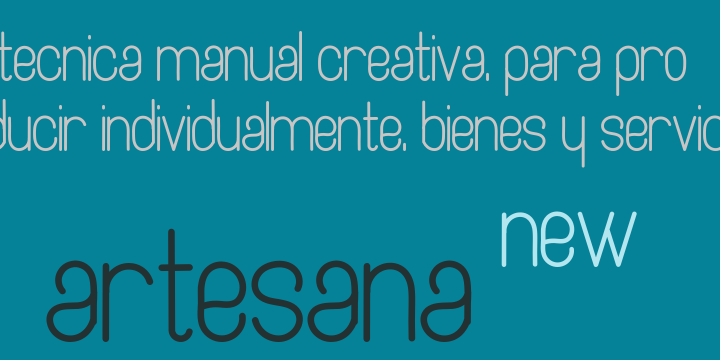
• Artesana
Artesana was created with the intention of offering a versatile font. Artesana is dynamic and strong, easy to read in all sizes, providing a high range of uses. It is elegant, with rounded edges that state simplicity. A typeface that you cannot miss.